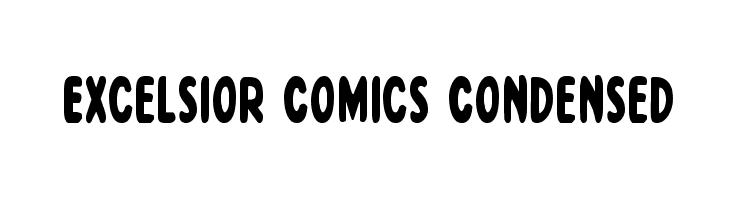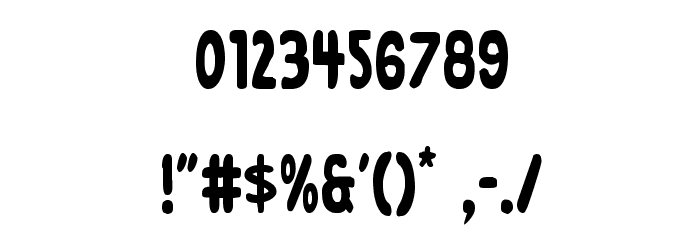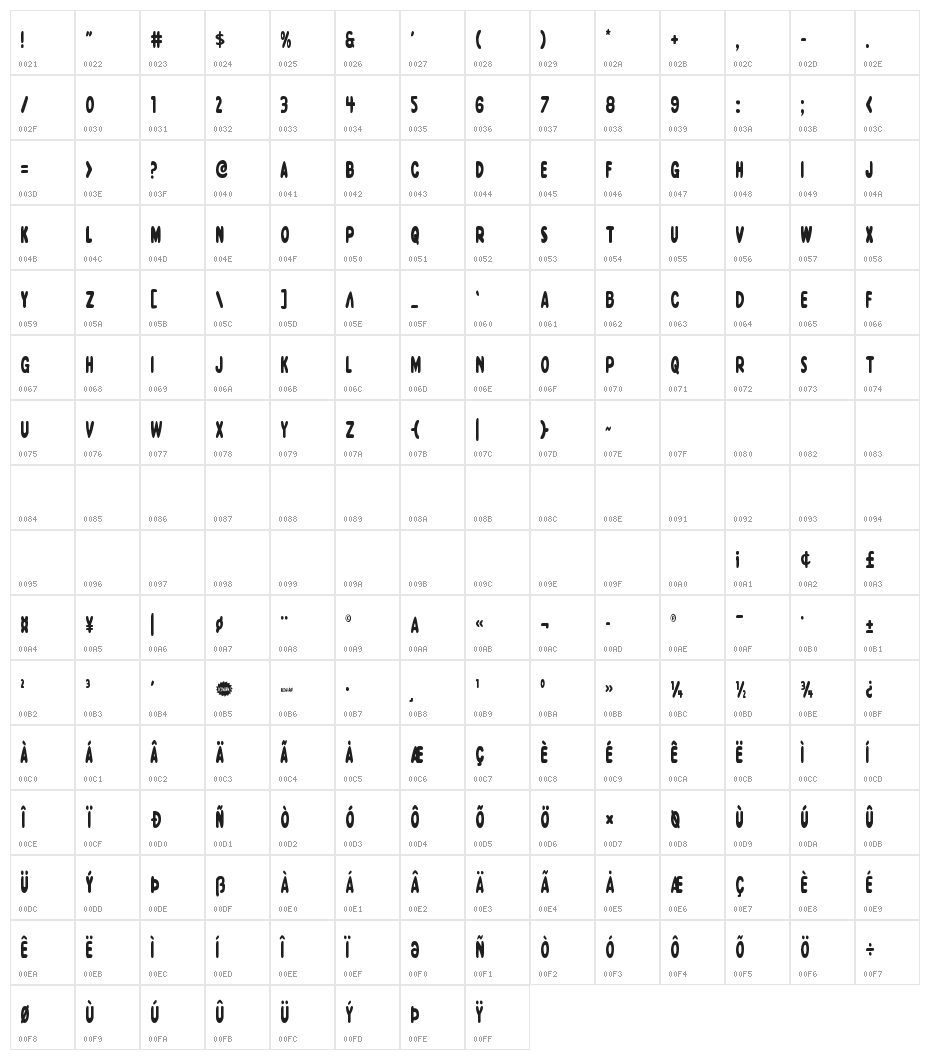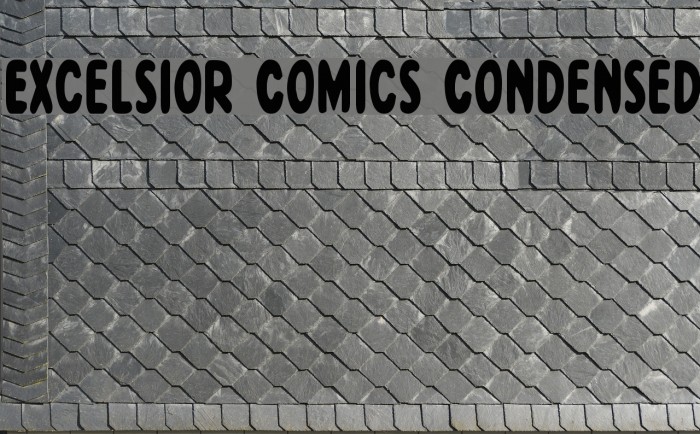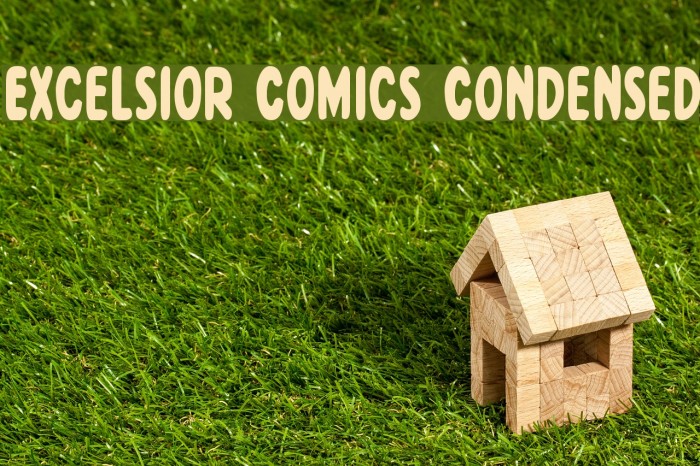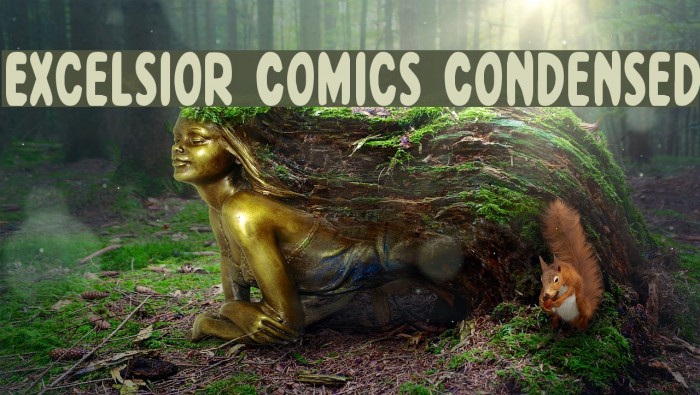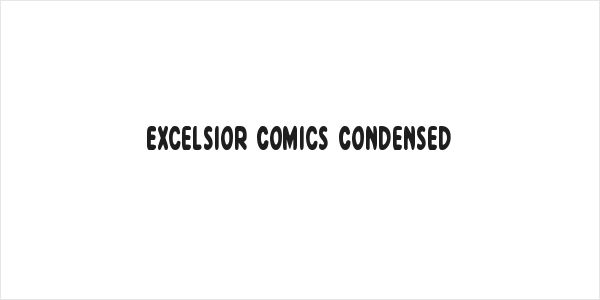
Excelsior Comics Condensed Font
Excelsior Comics Condensed Description
This font features a playful and bold style, characterized by its rounded and slightly condensed letterforms. The uppercase and lowercase letters maintain a consistent weight, creating a uniform appearance that is both approachable and dynamic. The numbers and special characters follow the same design principles, ensuring a cohesive look across all glyphs. The font's rounded edges and smooth curves give it a friendly and informal feel, making it suitable for a variety of creative projects. Its condensed nature allows for efficient use of space, making it ideal for headlines and titles where impact is essential.